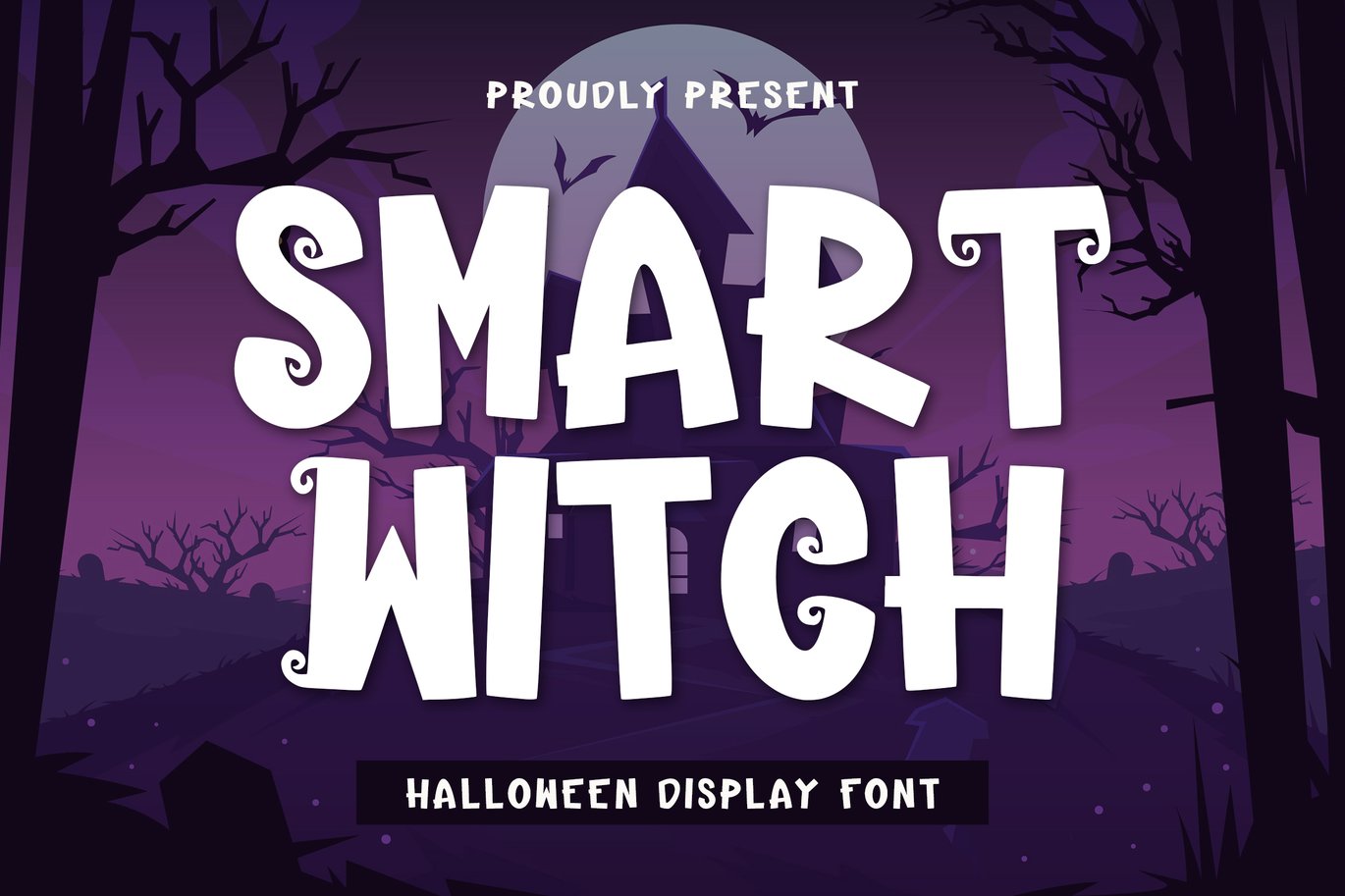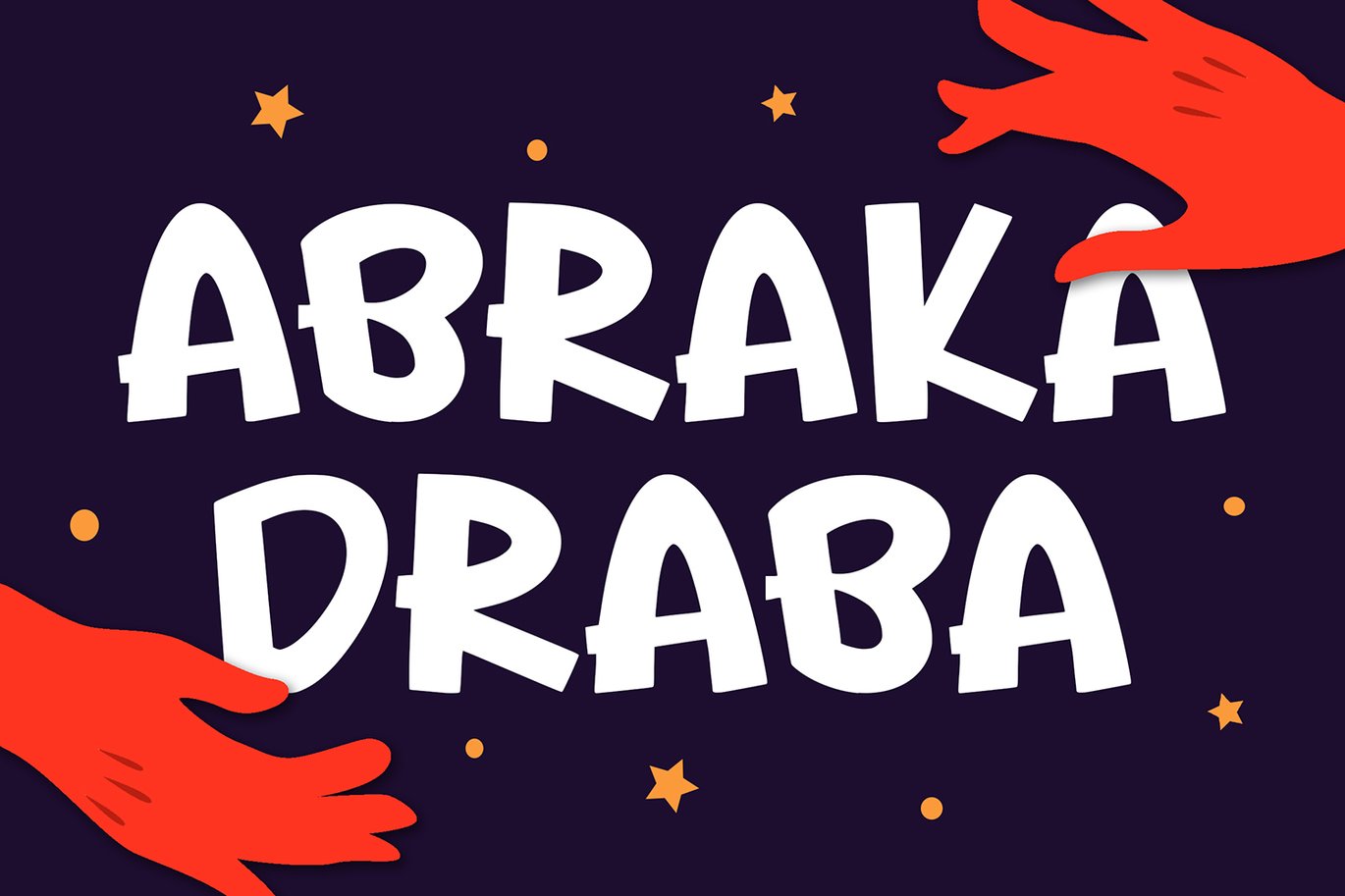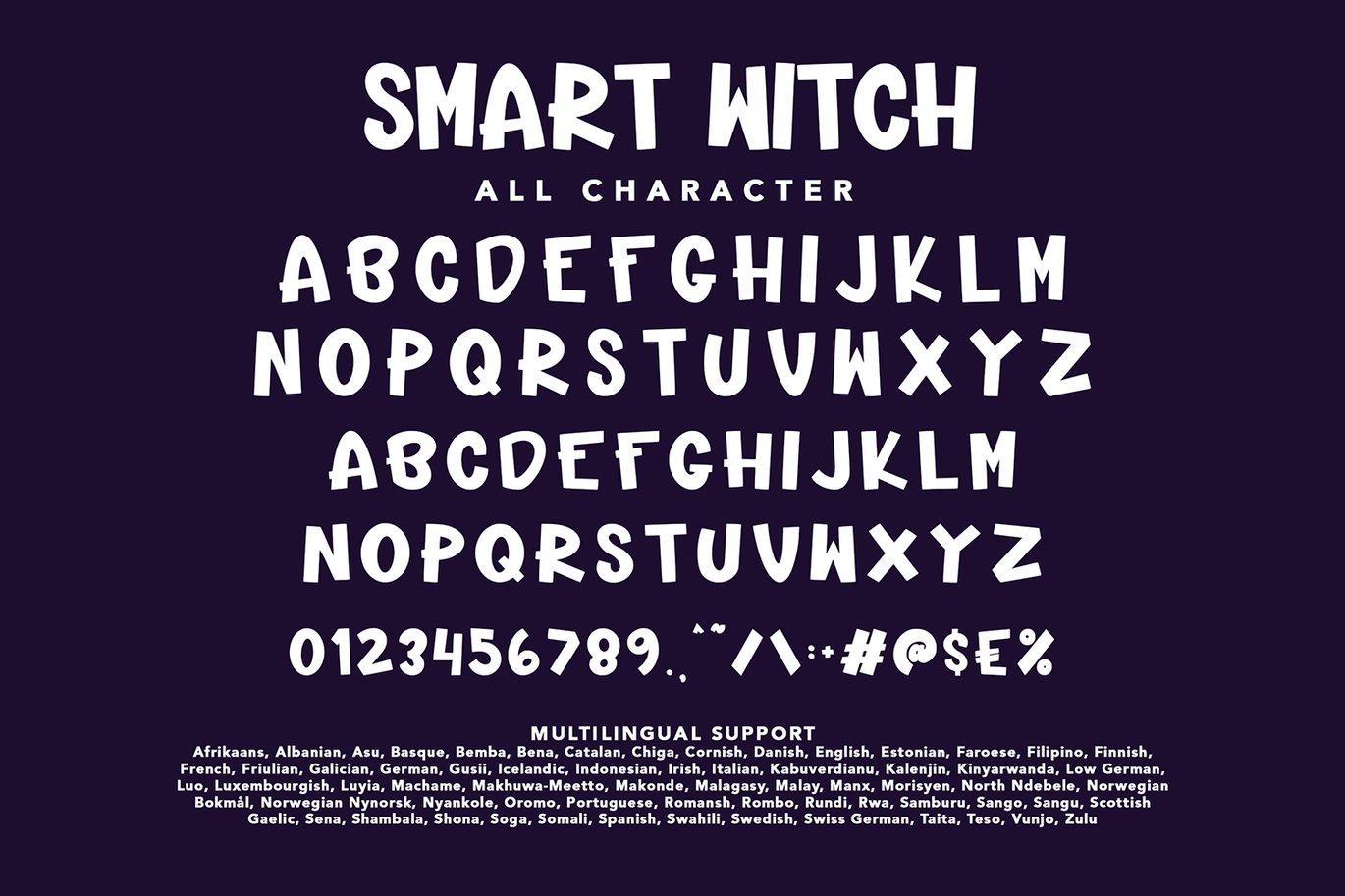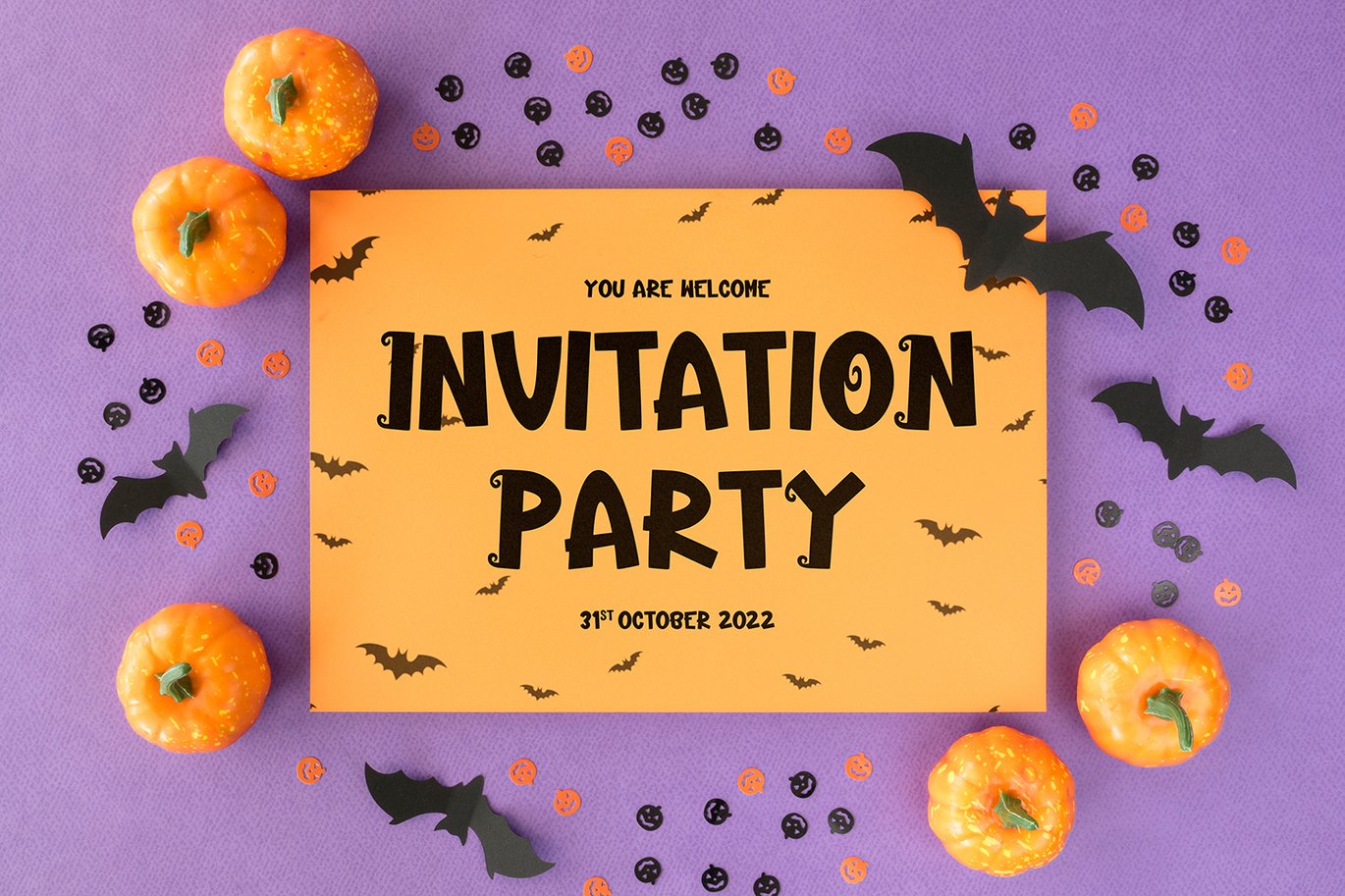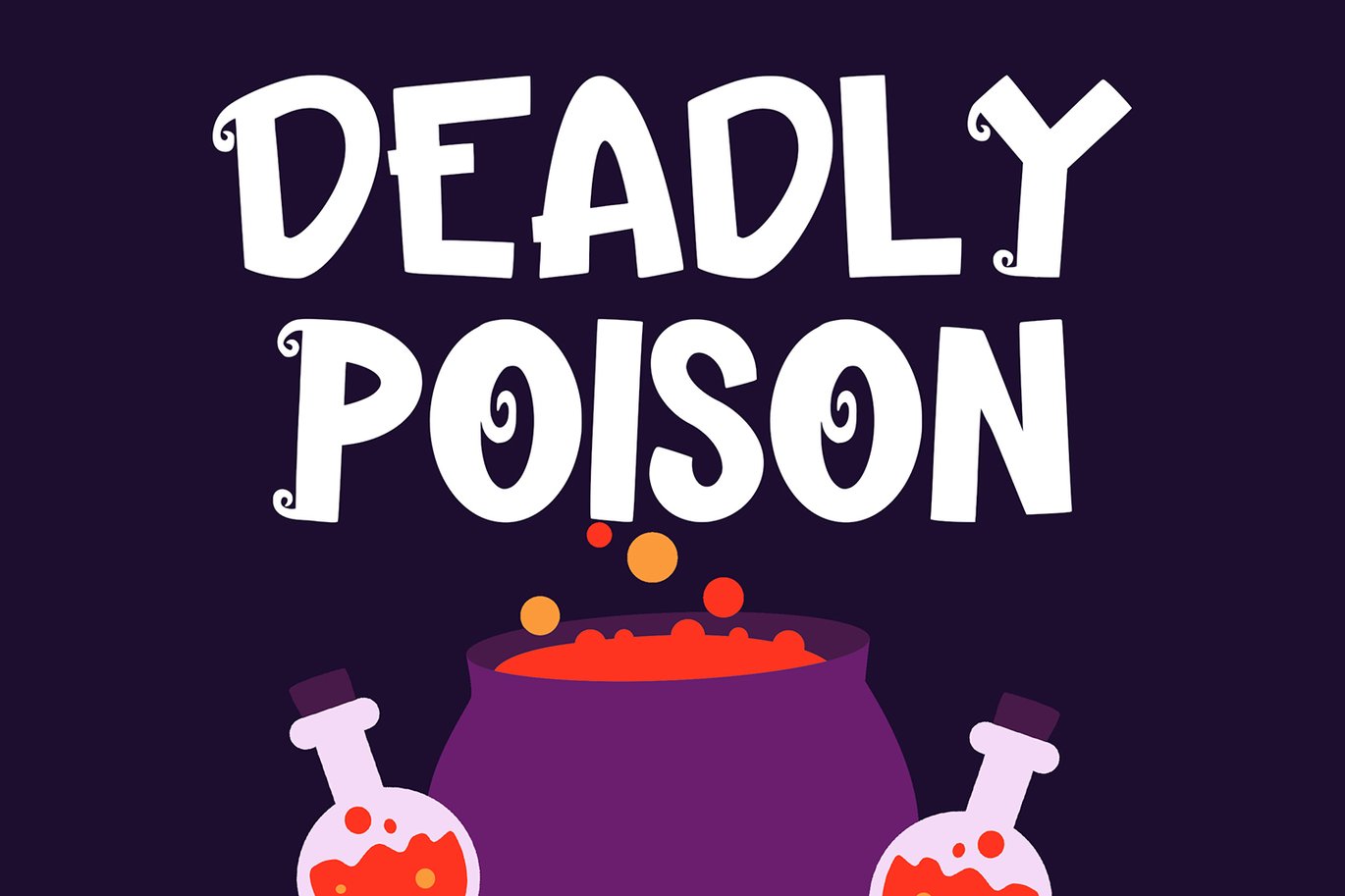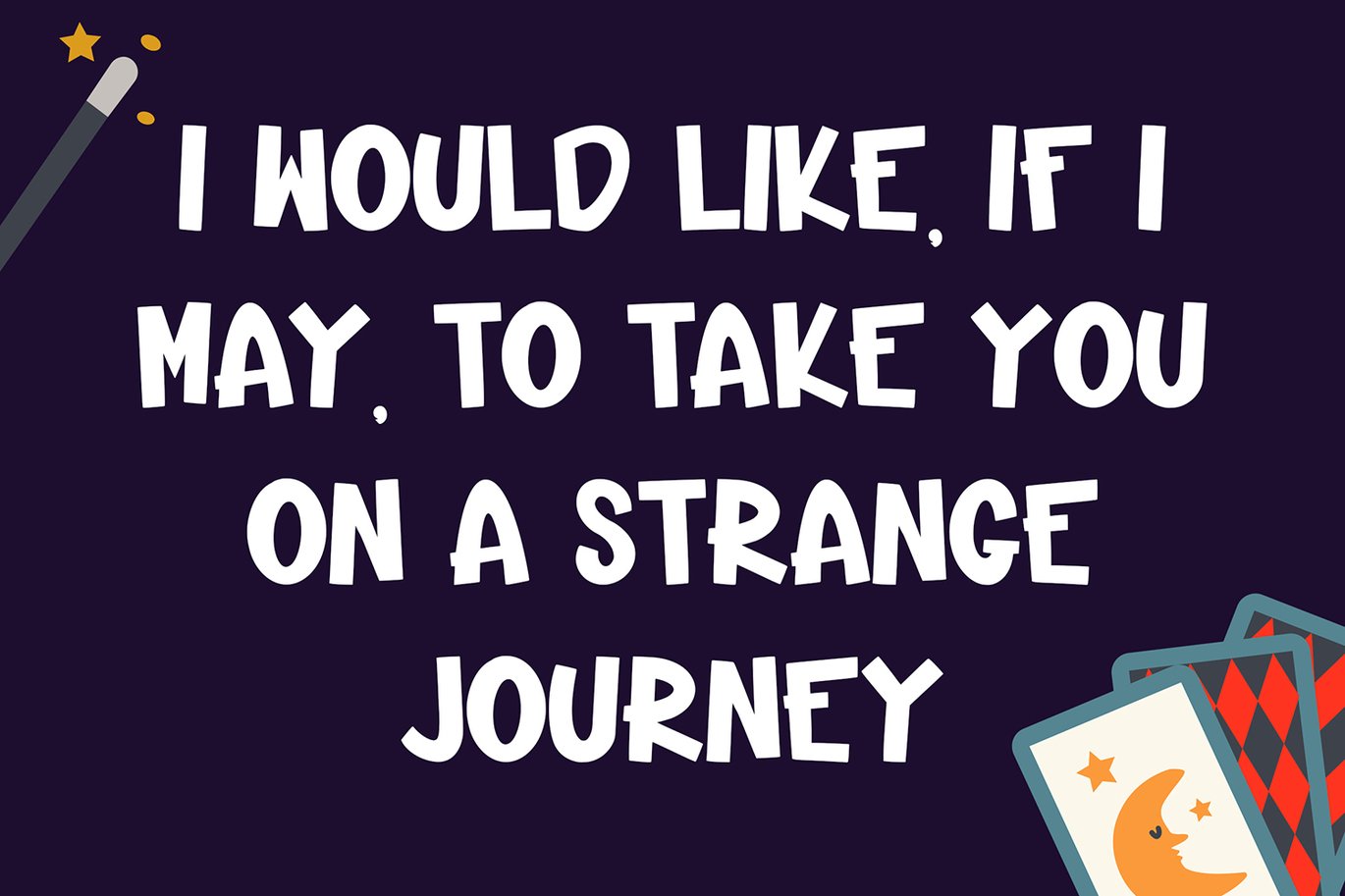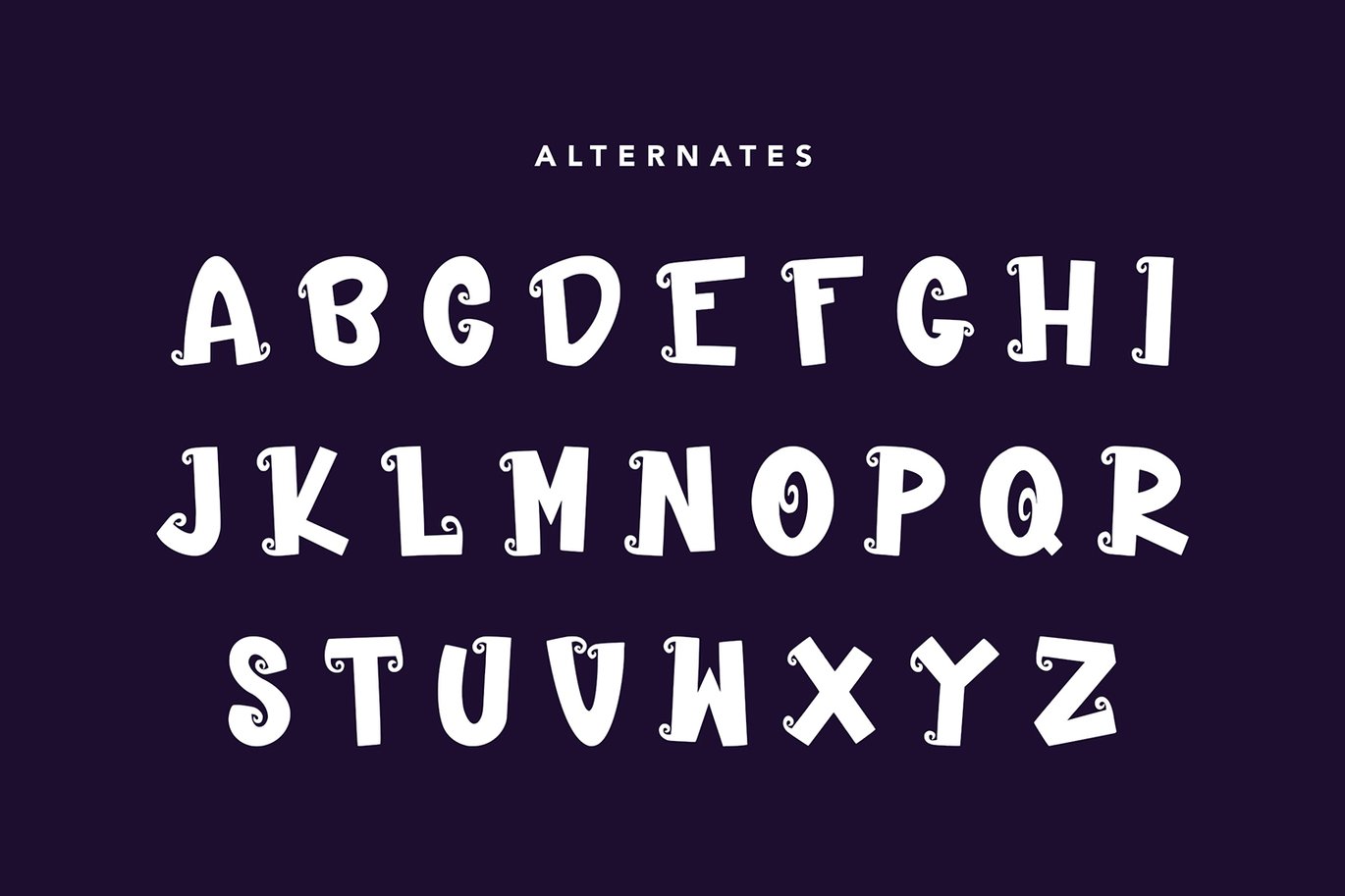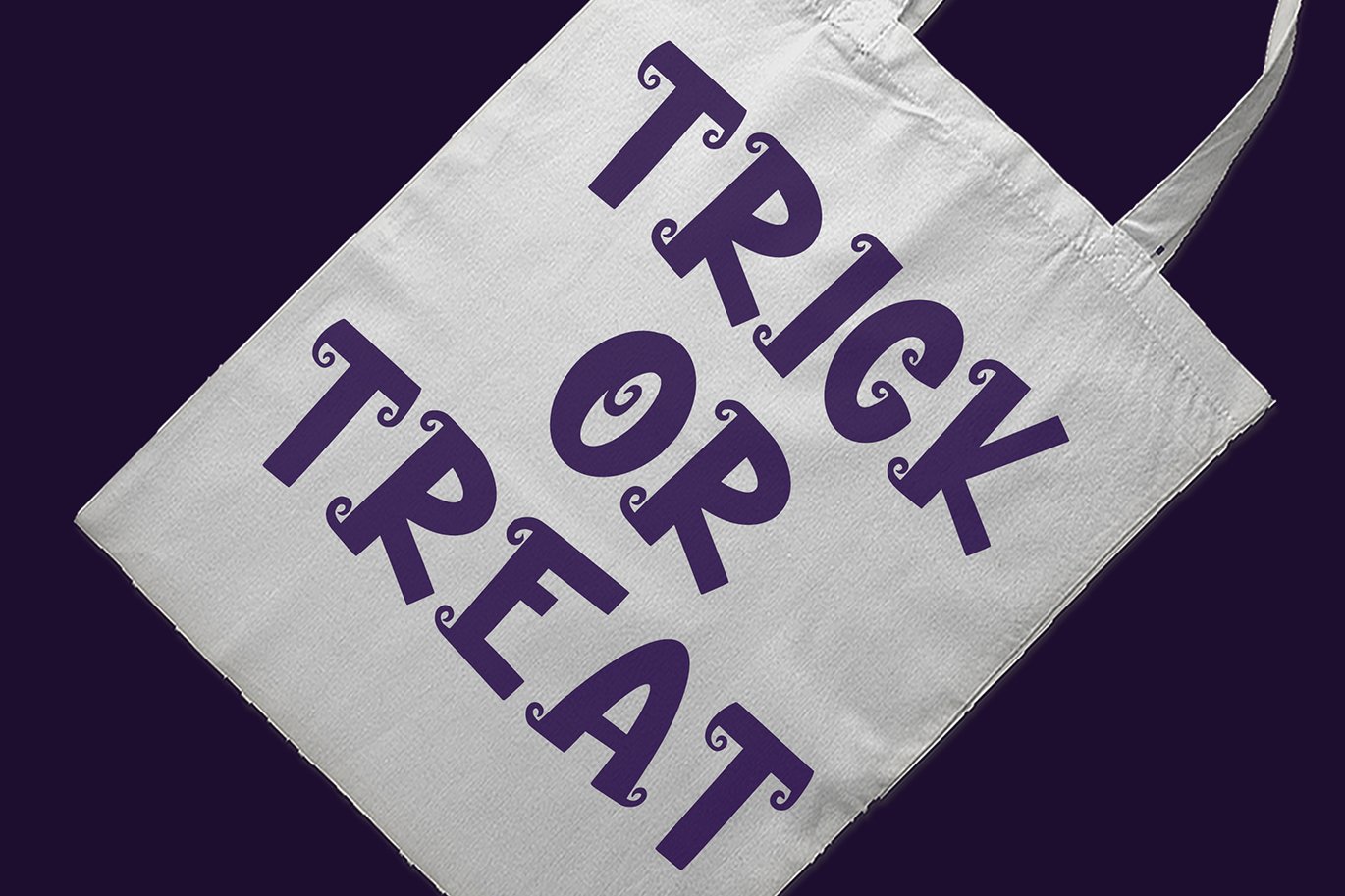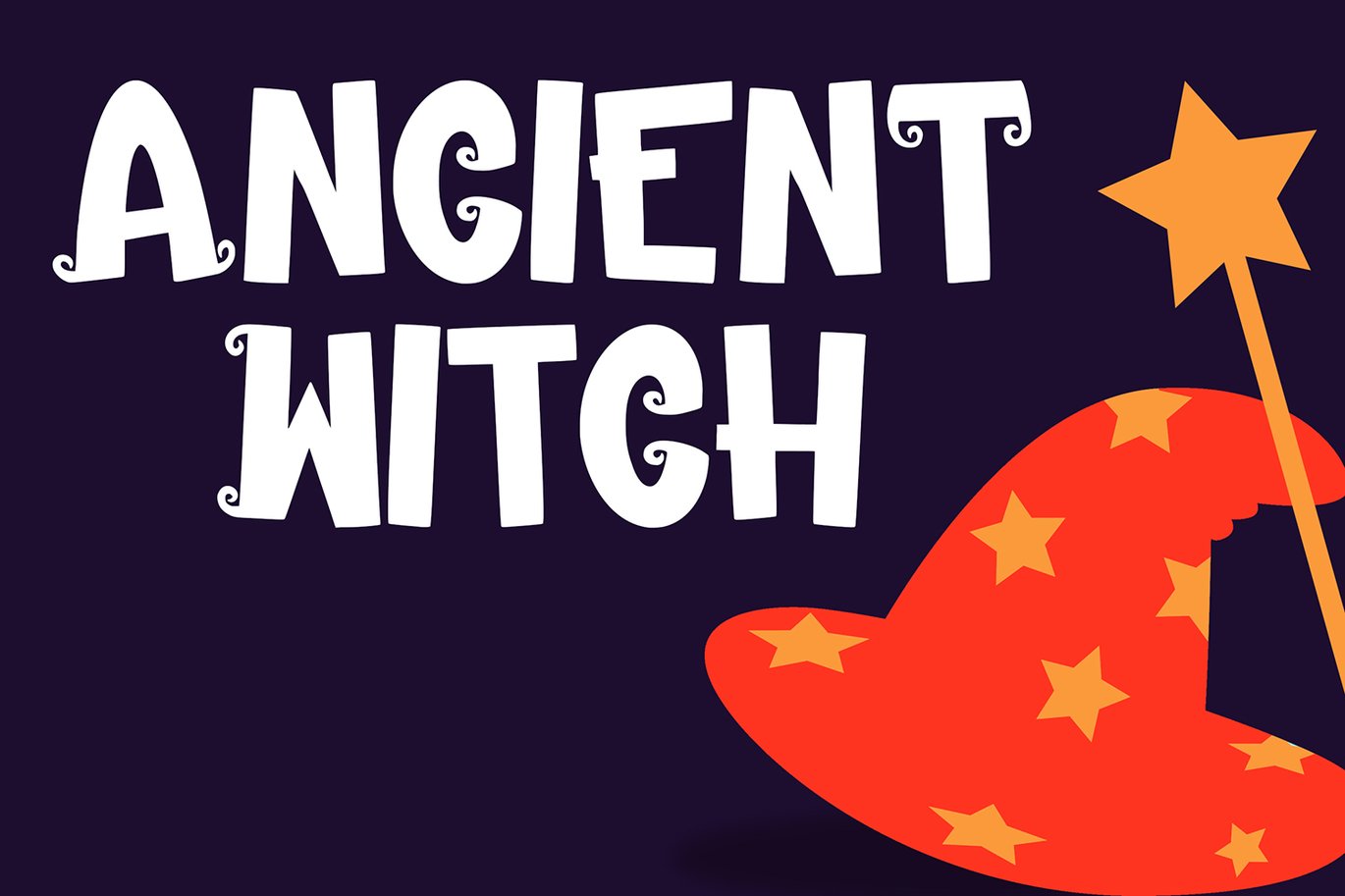
Smart Witch – Halloween Display Font
Smart Witch – Halloween Display Font contains a lowercase, uppercase, symbol, and also supports multi-language. There’s a lot of ligature in this font. Smart Witch – Halloween Display Font also comes with ligatures, stylistic alternates and many more.
this font suitable for fashion, branding, catalog and other design that you want.